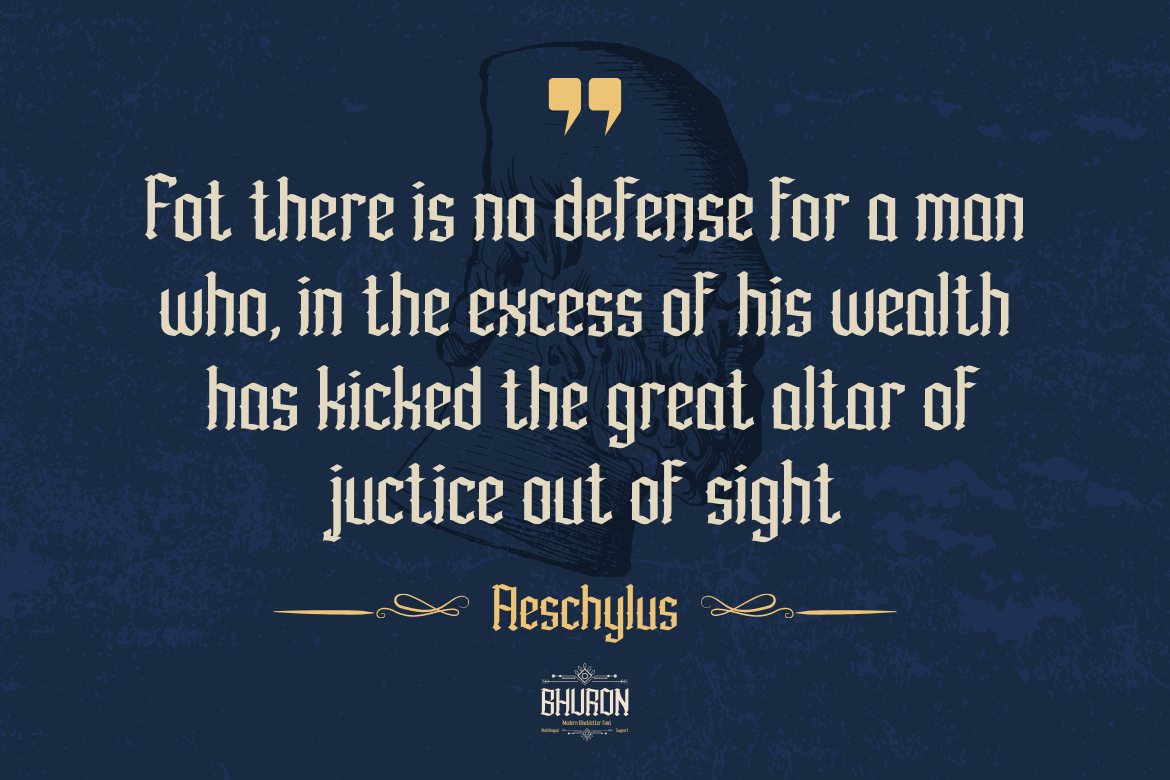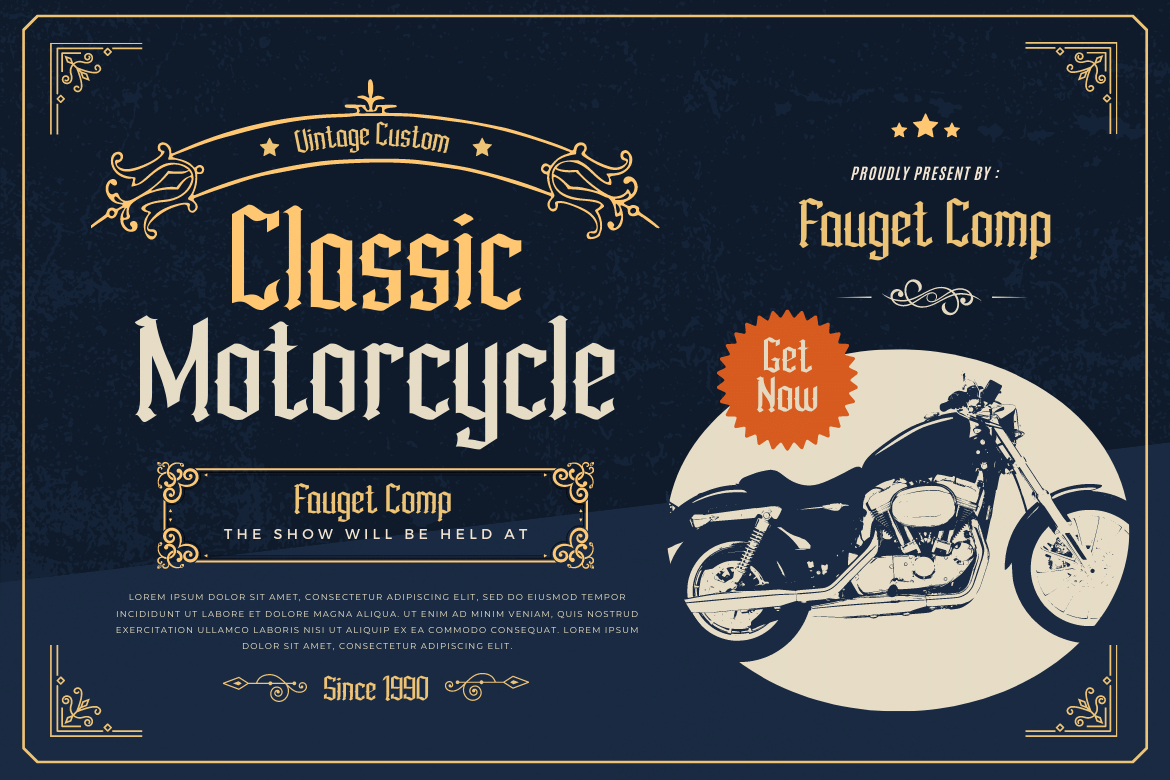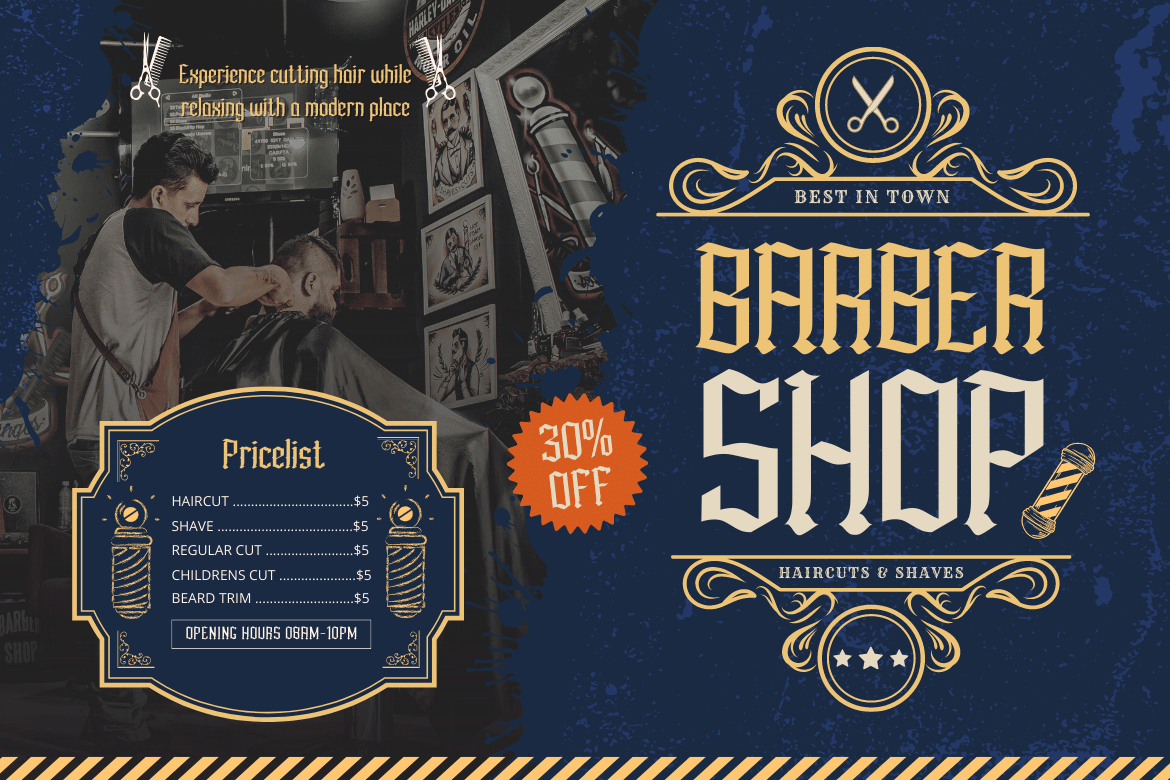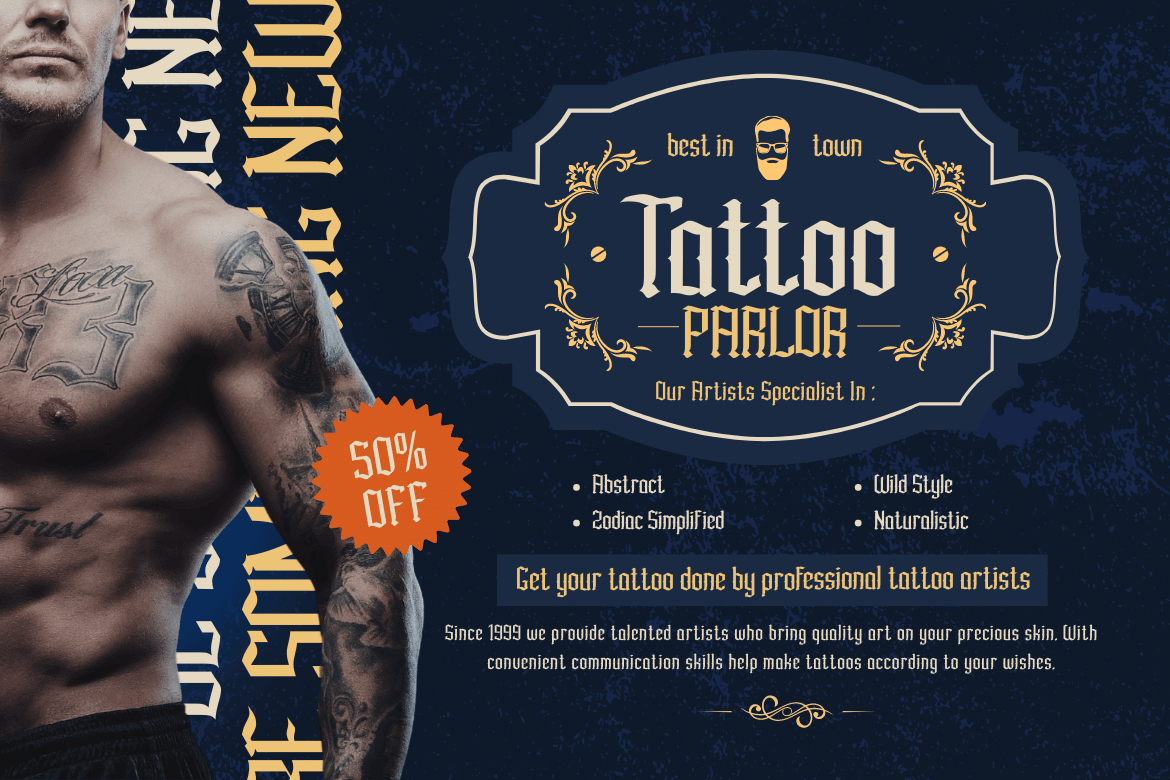
About Bhuron Font
Introducing the Bhuron Blackletter Font.
Fonts that can give you the option to mix and match for a unique and attractive look. This font can be used in a variety of projects to create a vintage and elegant style. Use it to enhance visual projects, titles, or banners, packaging with a bold classic look that exudes style, elegance, and strong personality.